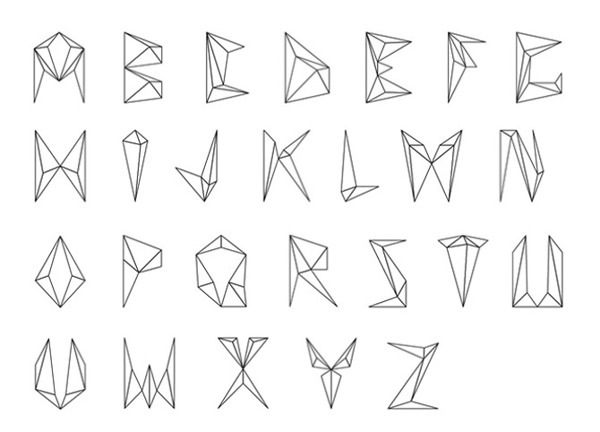
Mary Chalkia
Munich-based art director. Creator of the experimental 3d polytope-shaped typeface Mair (2013), the geometric typeface Heads Off Why (2011, done for an animal rights poster), and the geometric experimental typeface RMT (2010). |